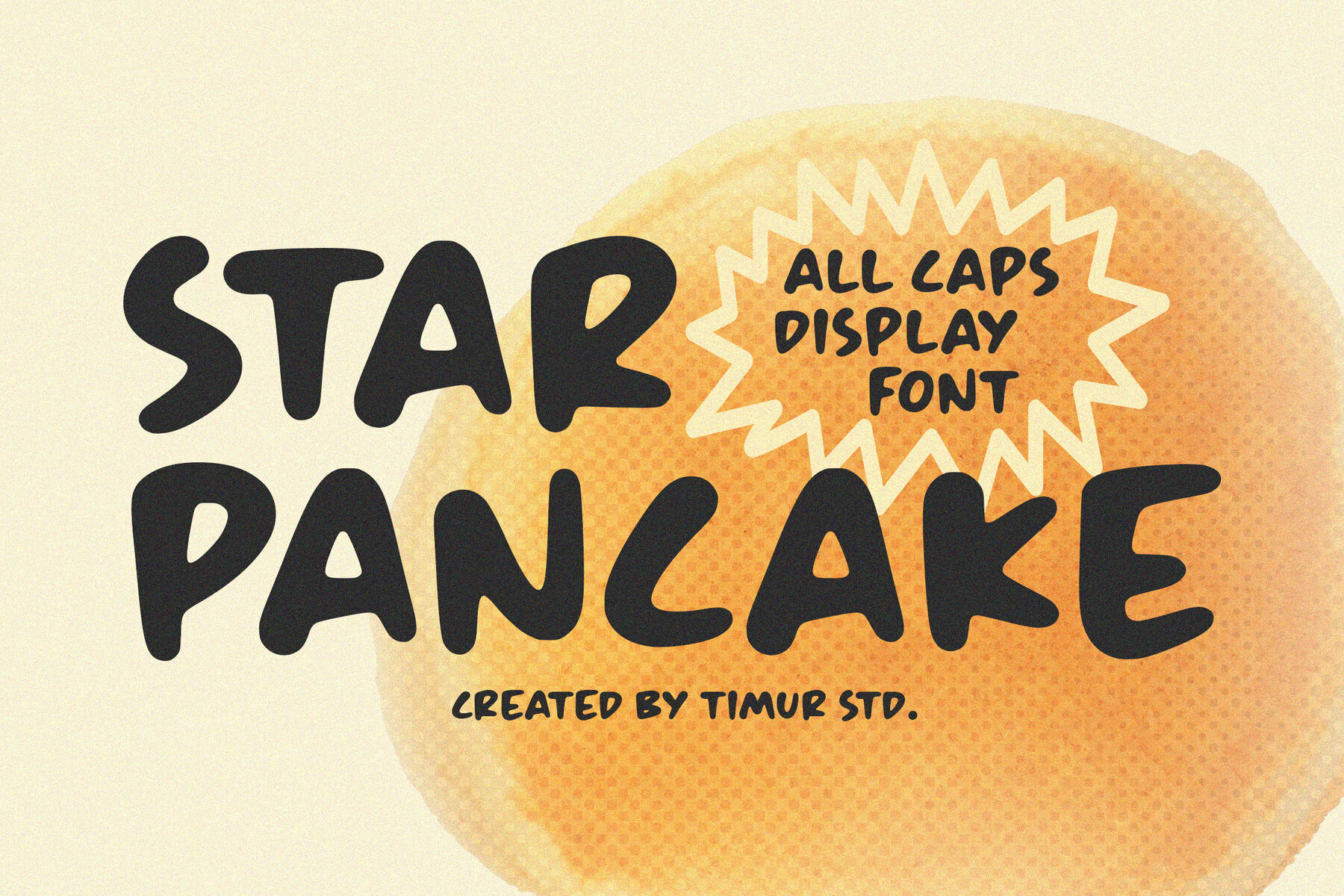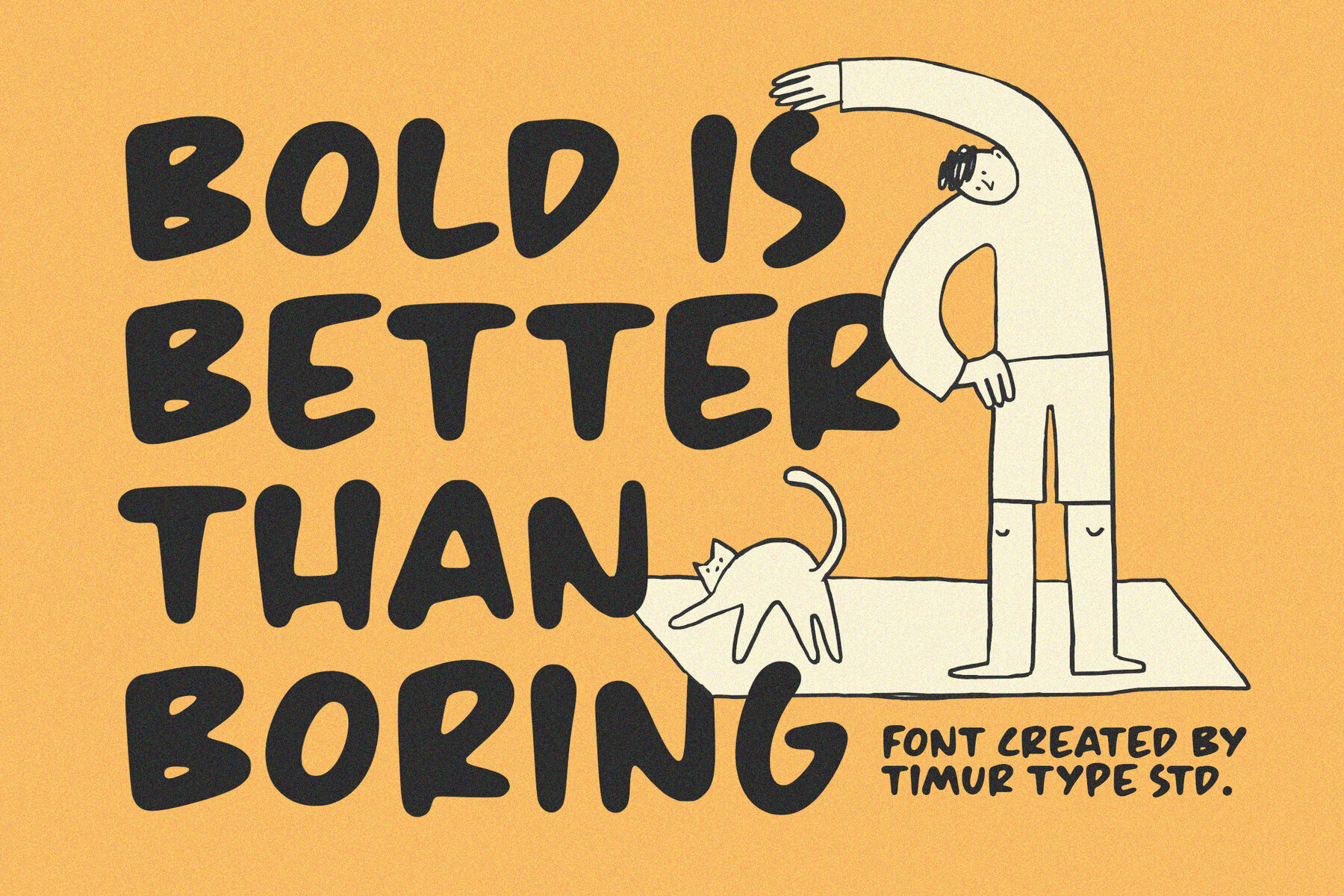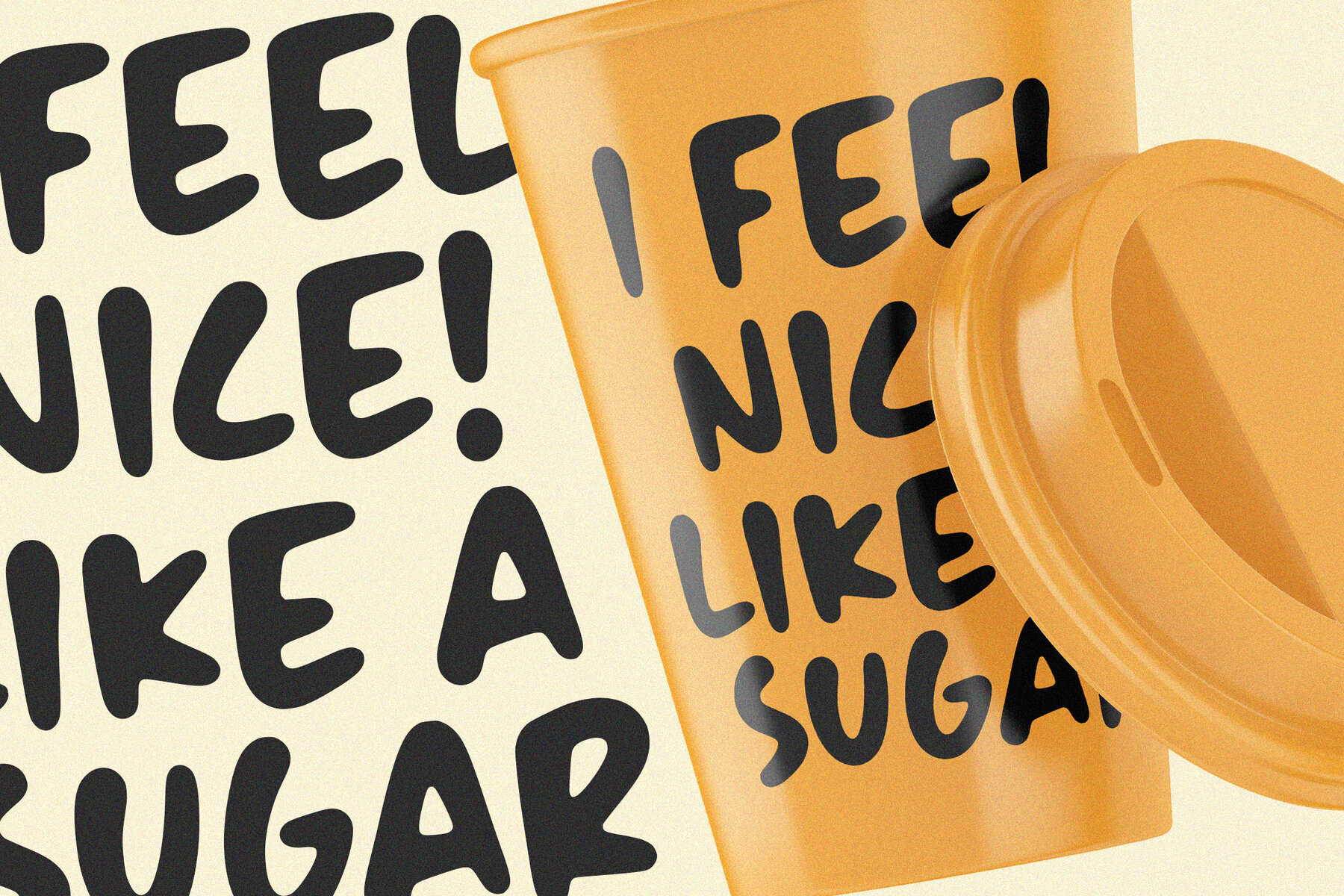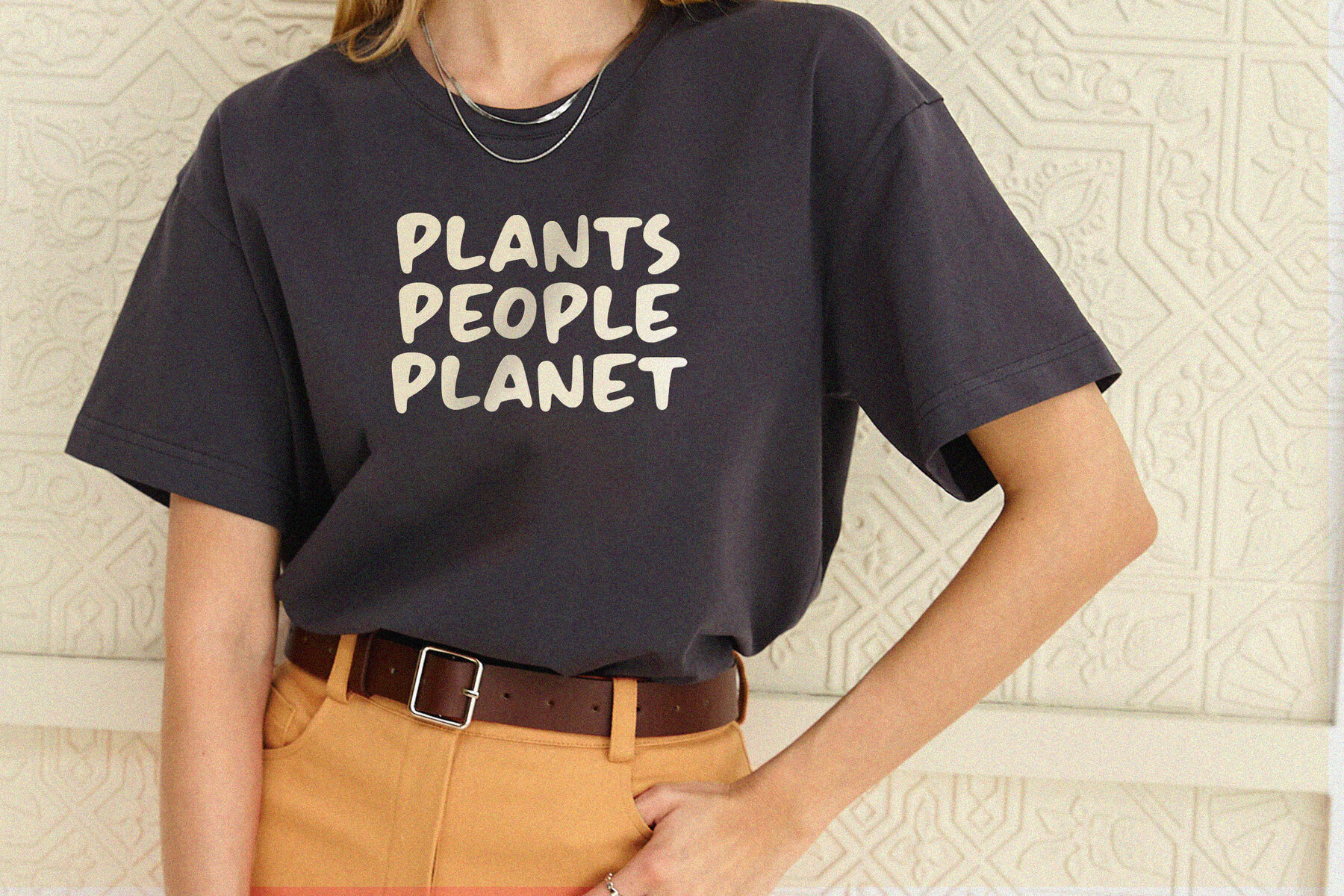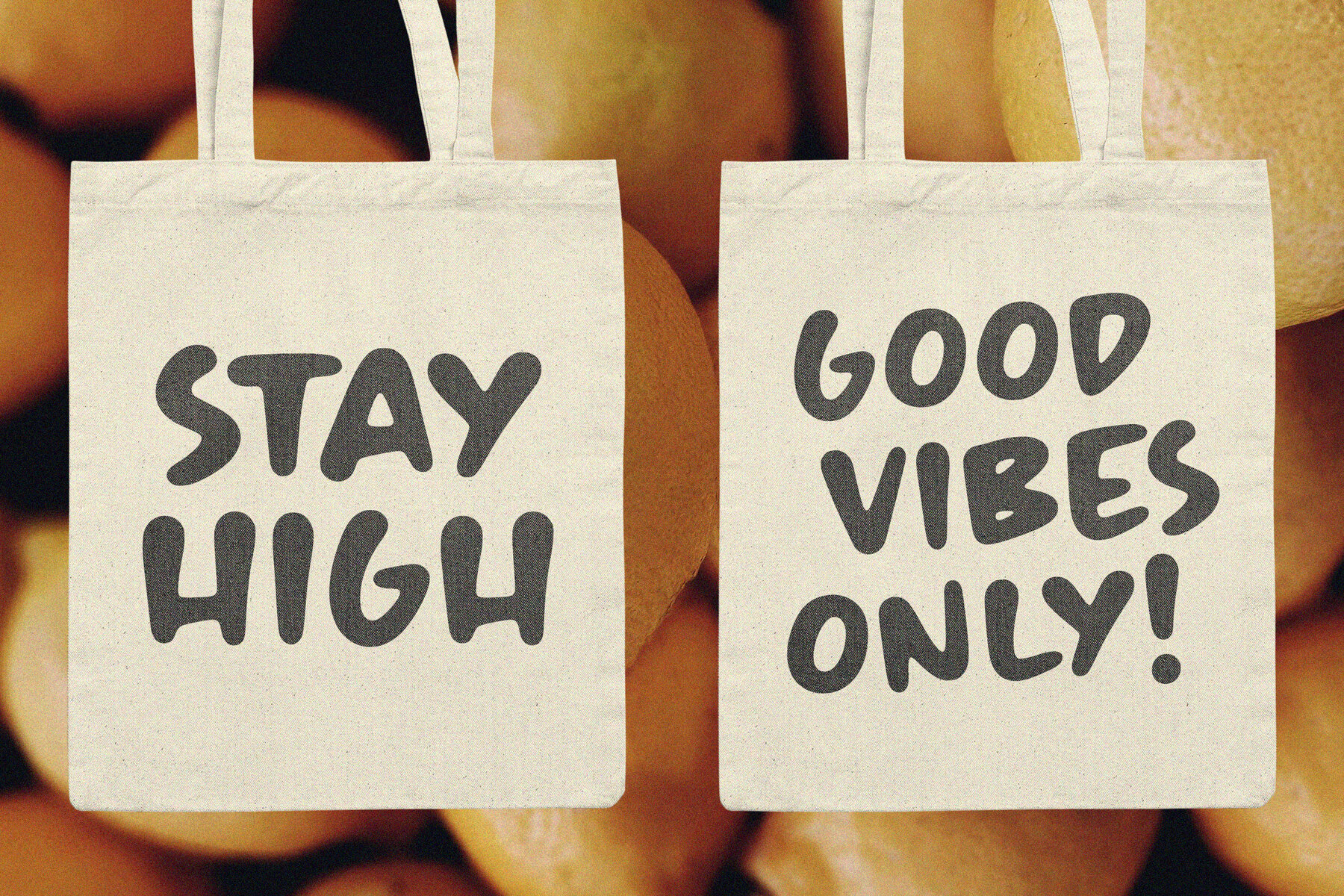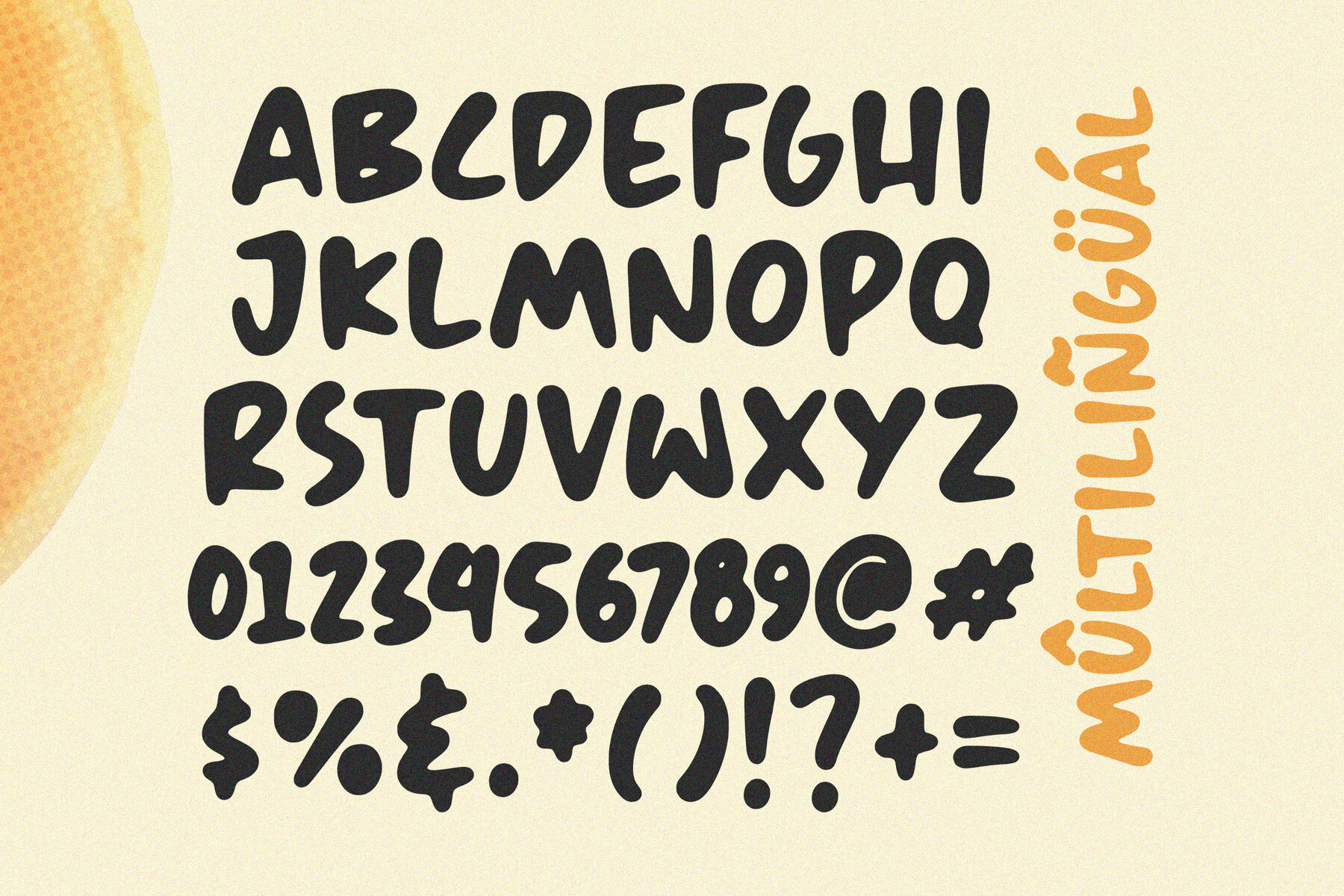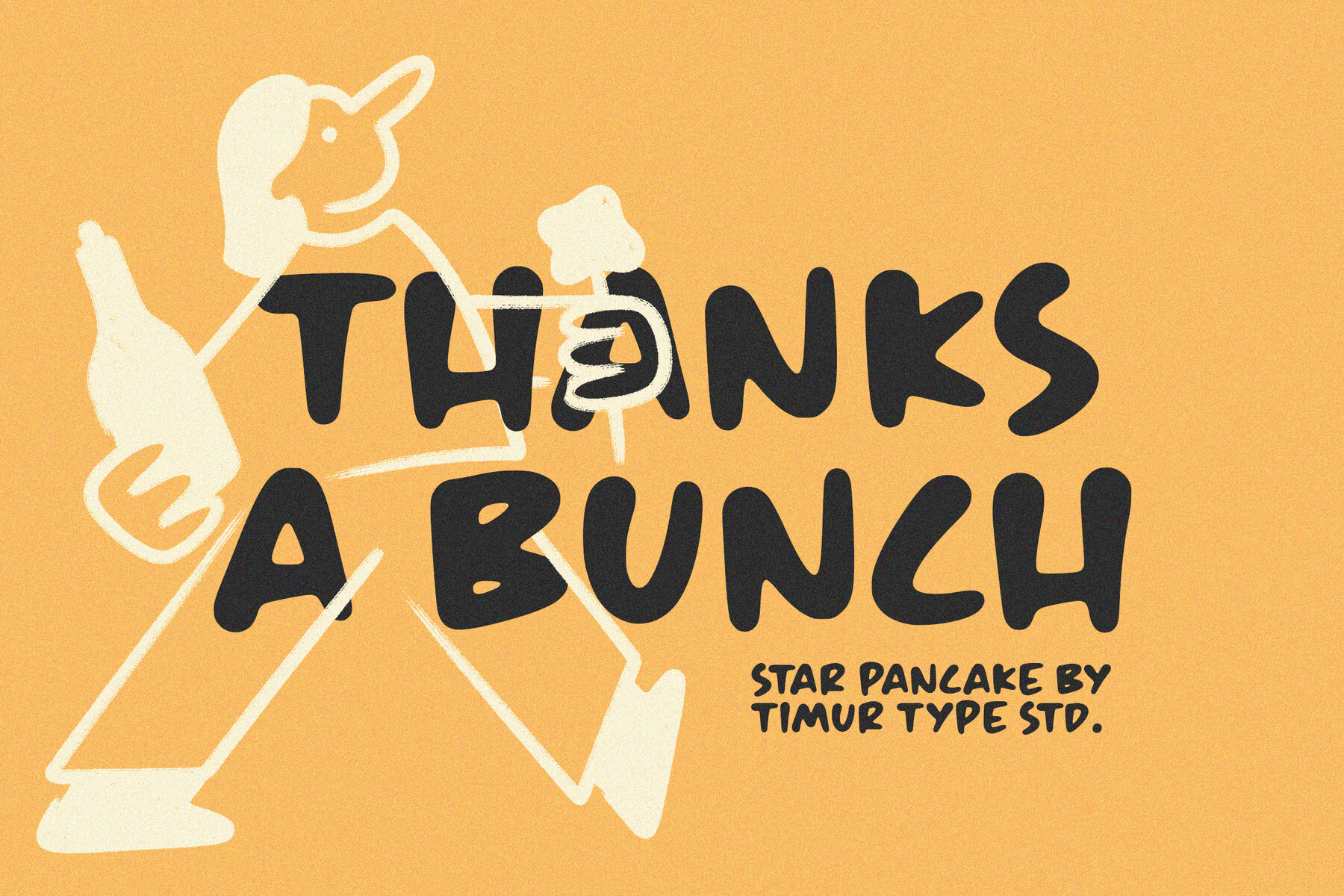
Star Pancake Font
Star Pancake
Star Pancake is a whimsical, all-caps display font characterized by its bold and playful design with a quirky, retro vibe. It features chunky letterforms and dynamic curves, making it an ideal choice for projects that require attention-grabbing visuals. Whether you're crafting an eye-catching headline or a dynamic logo, this font infuses character and energy into your design work.
Perfect for graphic and digital designers, Star Pancake excels in projects seeking a fun, retro aesthetic. Its distinctive style lends itself well to creative endeavors, from vibrant posters and promotional materials to unique branding applications. Let Star Pancake's striking presence elevate your designs with its unapologetically bold and charming character.